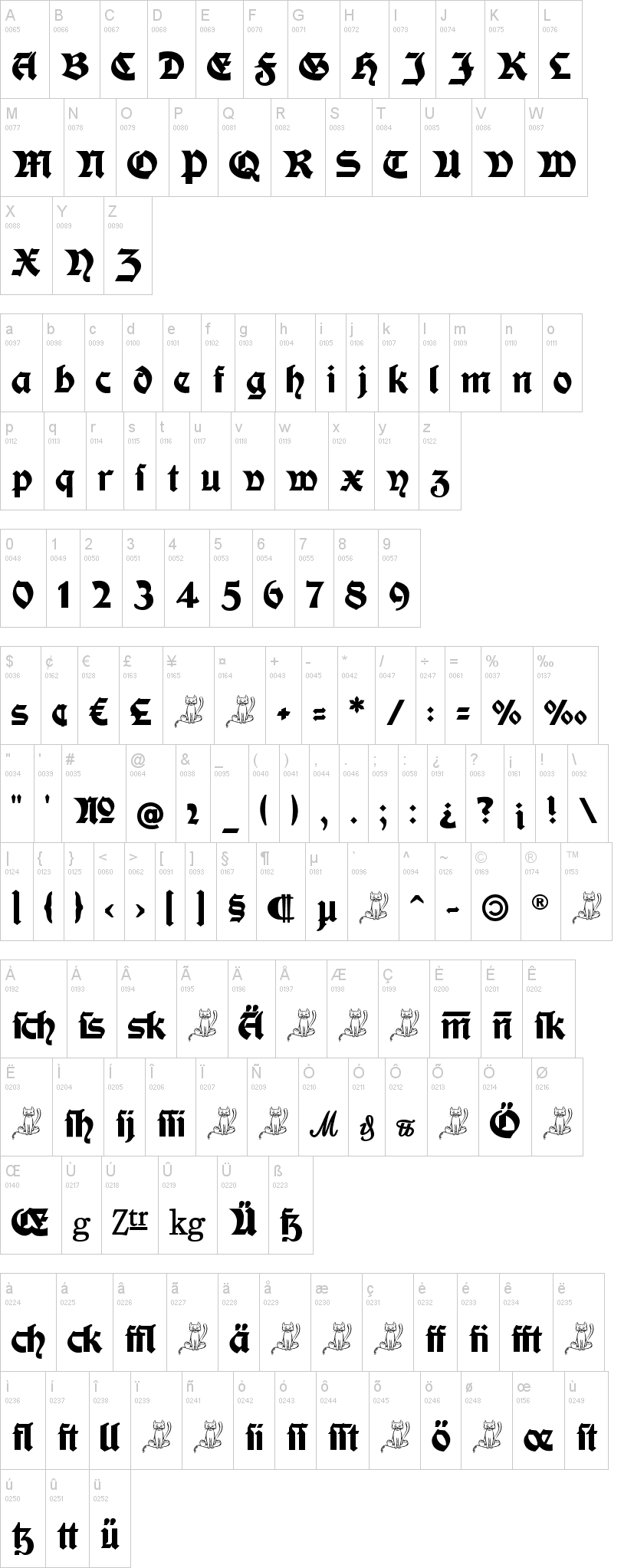
Шрифт Moderne Fette Schwabacher
Heavy stylish blackletter font fron 1910, Some more ligatures added, a "how to" for the ligatures added to the package